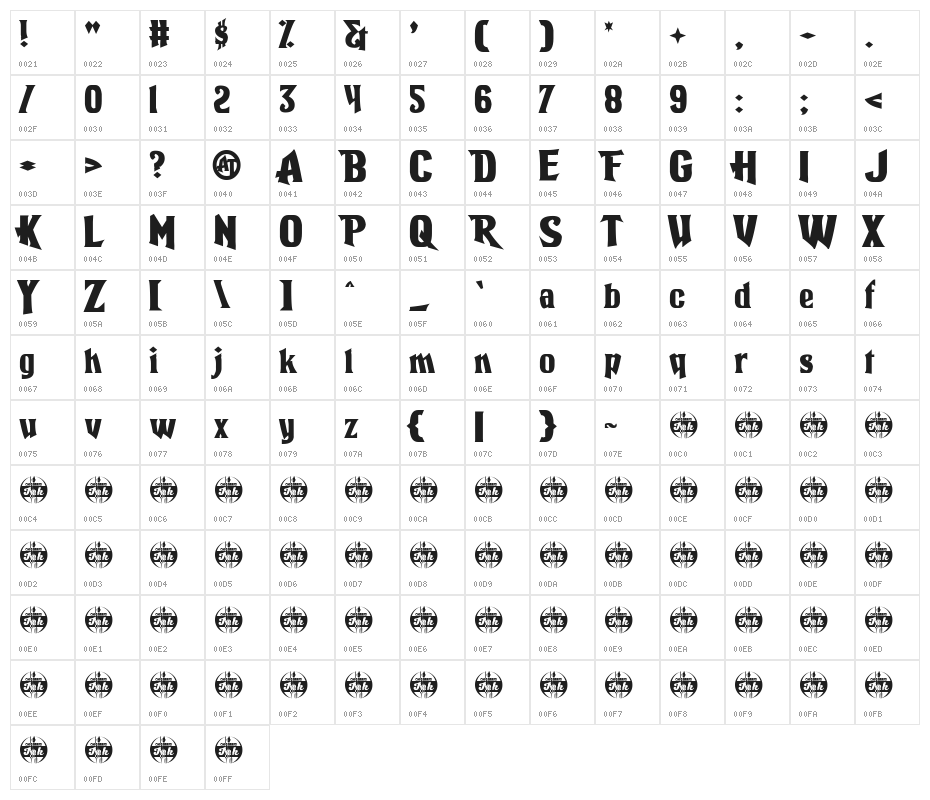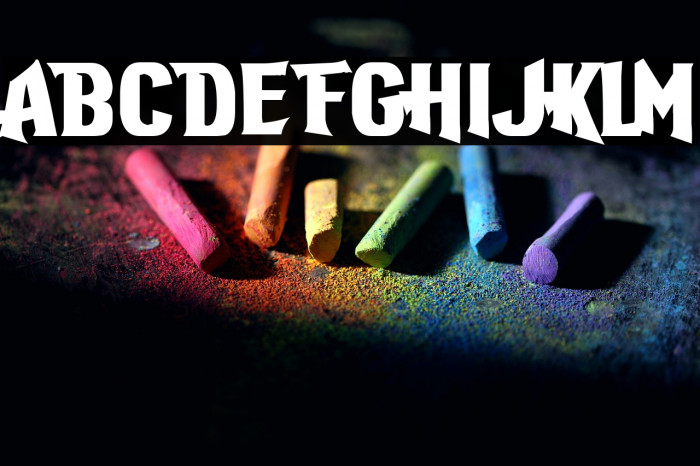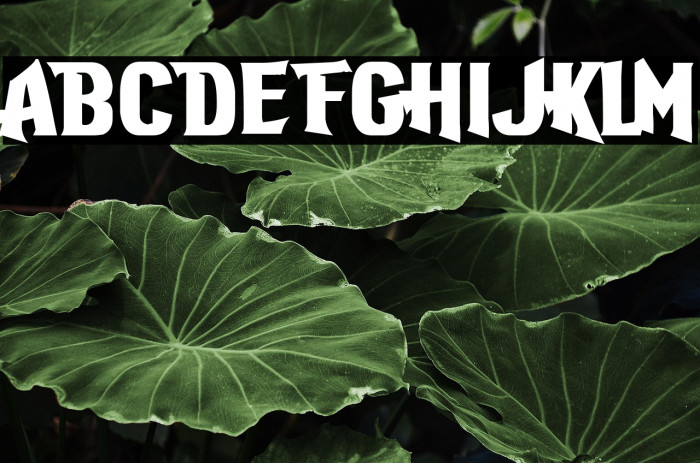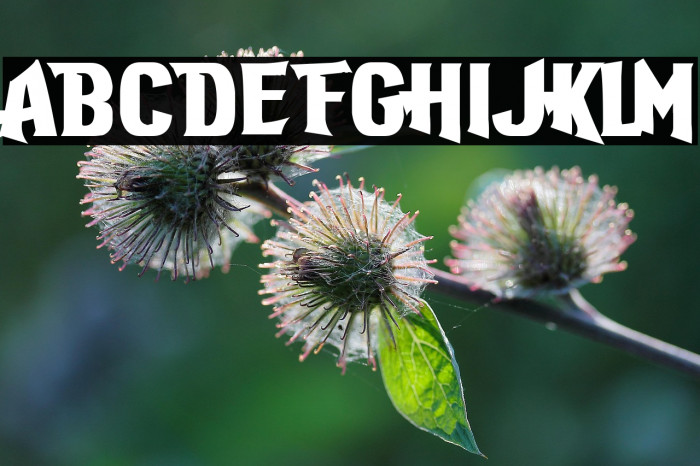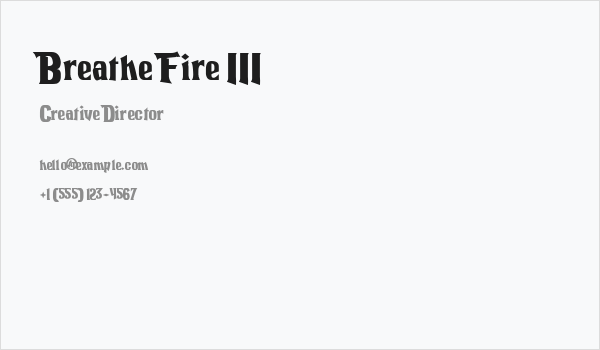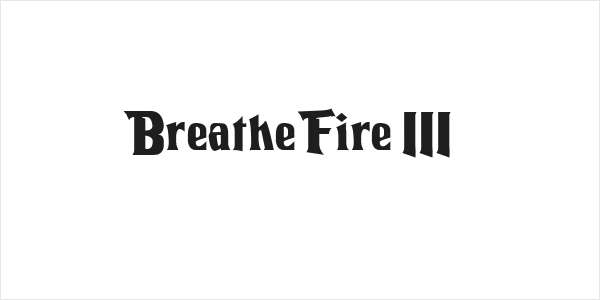
Breathe Fire III Font
Breathe Fire III Description
This font features a bold and dynamic style with sharp, angular edges and a distinct, aggressive flair. The characters are designed with a sense of movement and energy, reminiscent of flames or sharp blades. The uppercase letters are particularly striking, with exaggerated serifs and pointed terminals that create a sense of drama and intensity. The lowercase letters maintain this boldness, offering a cohesive look throughout. Numbers and special characters follow the same design principles, ensuring consistency across all glyphs. This font is ideal for projects that require a strong visual impact and a sense of boldness.